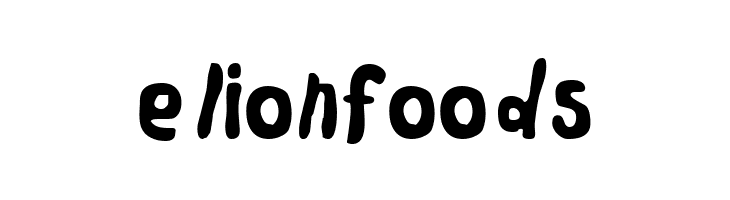
( Fonts by Alan Carr )
A dynamic, brush-stroke inspired font with bold, artistic characters.
A playful and quirky font with rotated, irregular characters.
( Fonts by Loraine Wauer Ferus www.billybear4kids.com )
A playful font with characters embedded in dinosaur shapes, perfect for fun and imaginative projects.
( Fonts by Klaus Johansen - www.listemageren.dK )
A playful font styled like domino tiles with dots and tilted characters.
( Fonts by Colorful Typhoon - http://orange.s56.xrea.com/blog/ )
A playful, handwritten-style font with bold, rounded characters.